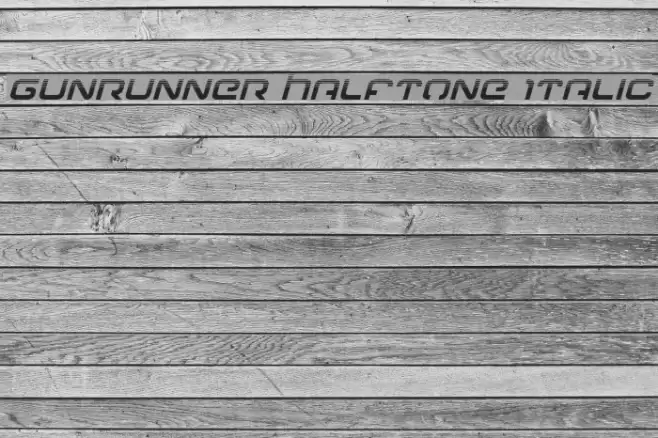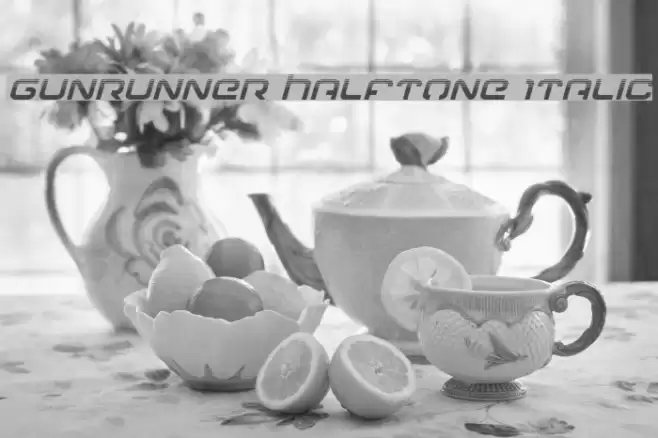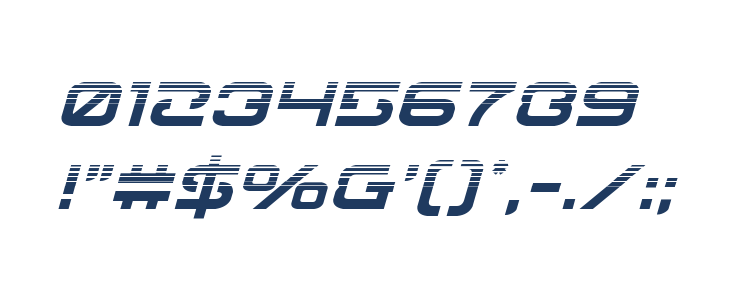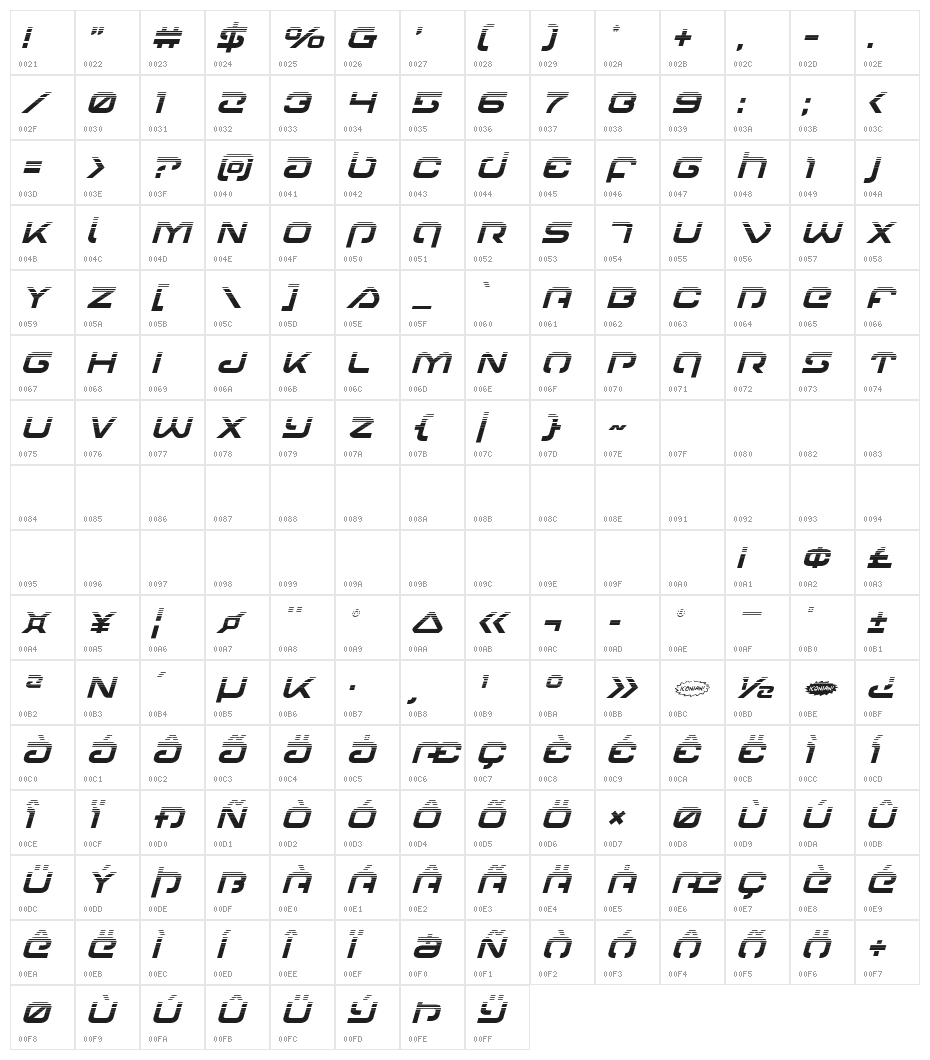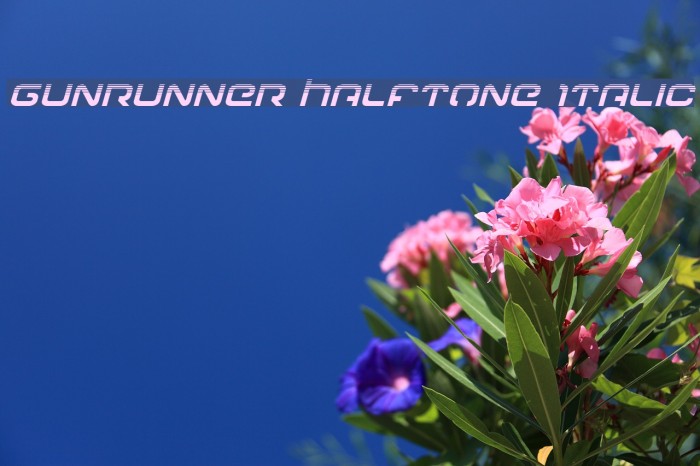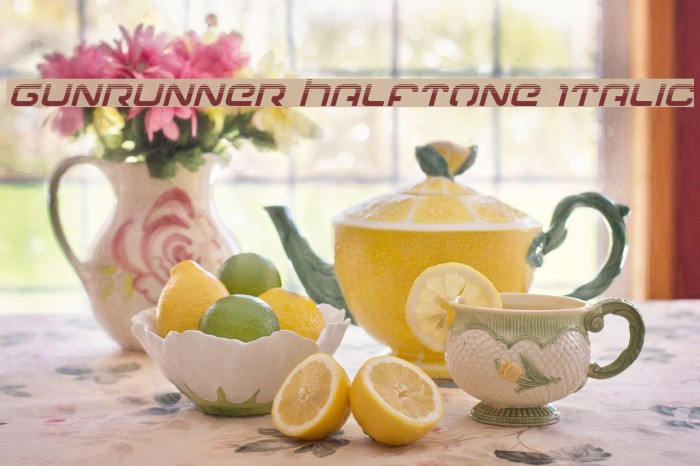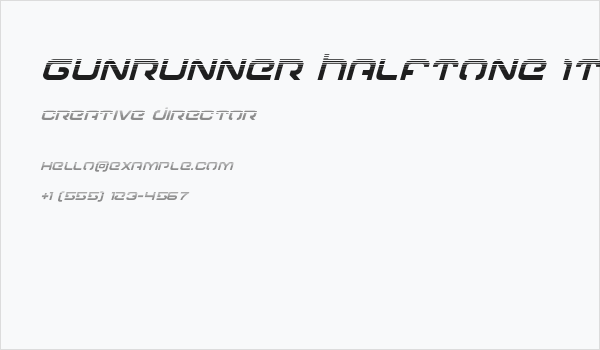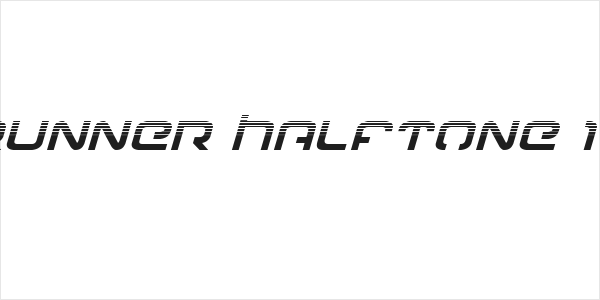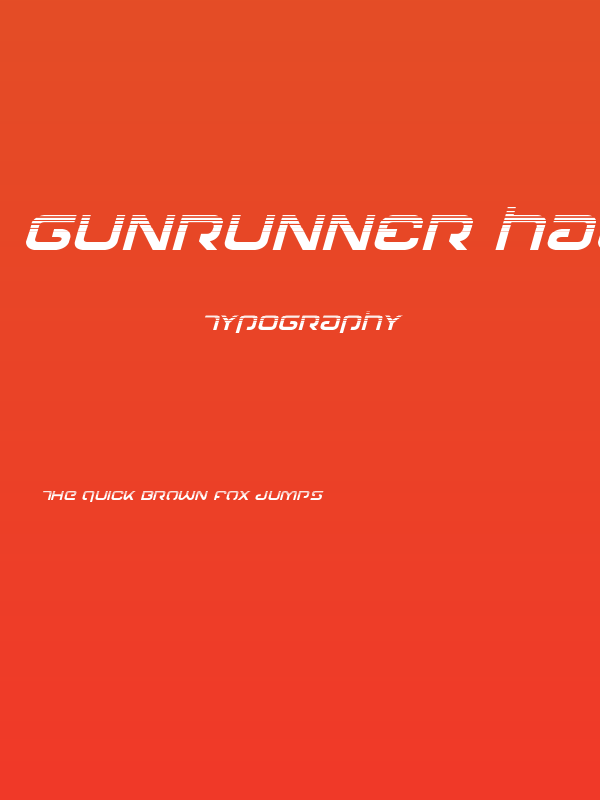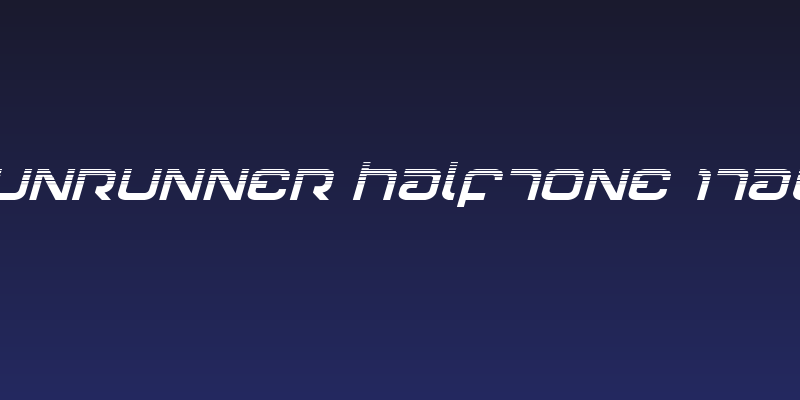
Gunrunner Halftone Italic Font
Gunrunner Halftone Italic Description
This font features a dynamic and futuristic design with a halftone effect that gives it a unique, digital appearance. The characters are italicized, adding a sense of motion and speed. The uppercase and lowercase letters maintain a consistent style, with sharp angles and clean lines. The numbers and special characters are equally stylized, ensuring uniformity across all glyphs. The halftone pattern creates a sense of depth and texture, making it ideal for modern and tech-oriented projects.
A futuristic, italicized font with a halftone effect, perfect for tech-themed designs from Sci-fi fonts.
- Proposed Projects: Ideal for technology branding, video game titles, sci-fi book covers, and digital art projects.